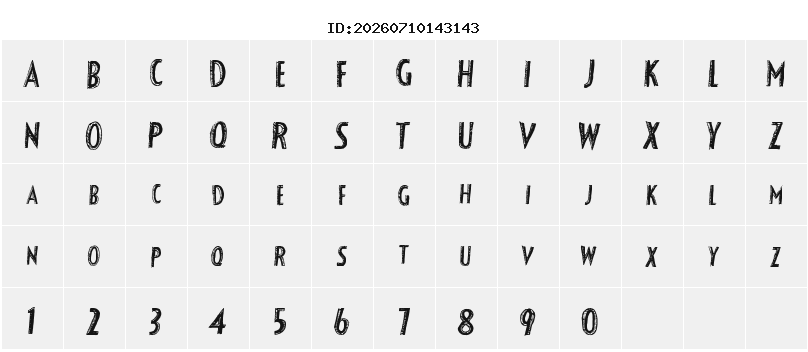
FancyShadow Preview
• Font Name: FancyShadow
• Font ID: FancyShadow:Version 1.00
• Full Font Name: FancyShadow
• Version: Version 1.00 August 8, 2013, initial release
• PostScript Name: FancyShadow
• Designer: Xerographer Fonts Max Infeld
• Manufacturer: Xerographer Fonts
• Description: Made at Xerographer Studios in Chico,CA
About FancyShadow.ttf
FancyShadow.ttf is a modern, elegant sans-serif font designed for ultimate readability and visual harmony. Perfect for branding, headlines, web design, and print materials.